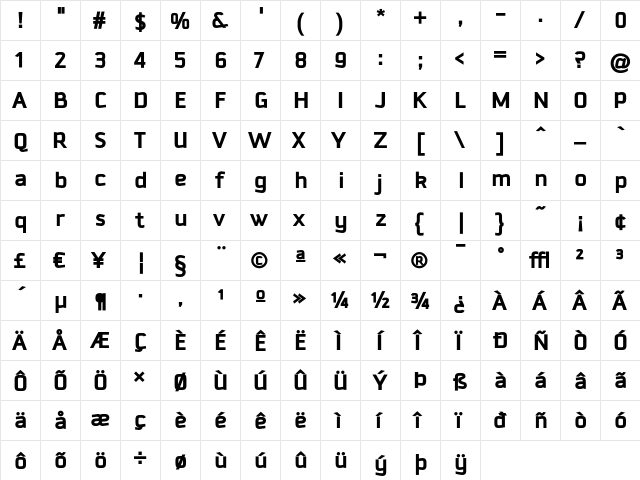
Downtempo Bold
Design Context for Downtempo Typeface
Downtempo takes a measured approach to typography — its balanced proportions and neutral character make it a reliable workhorse for both digital and print work. Its bold stroke weight gives it real presence on the page.
Pro Tip: Use Downtempo in both headline and body roles to test its range before committing to a single application.